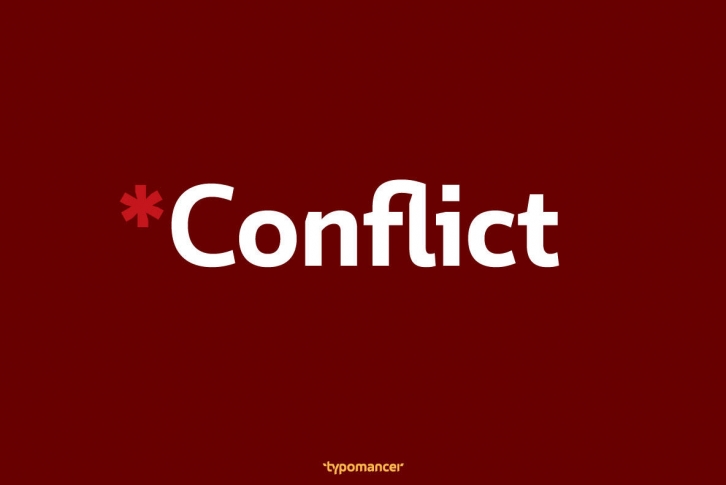
'Conflict' is one of Typomancer's early typeface that released when the foundry starts.
After a few years, we decide to give them a major changes. More weights, more glyphs,
brand new outline, revamp kerning and emphasized the characteristic.